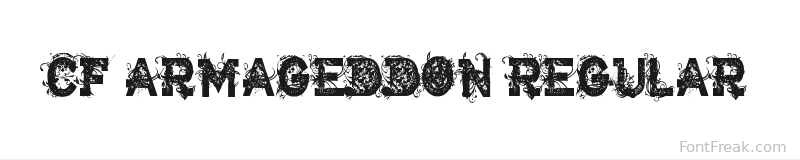
CF Armageddon Regular
CF Armageddon Regular by Cloutierfontes is a striking display font that embodies a unique blend of creativity and boldness. This decorative typeface features a rugged, textured appearance that captures attention with its intricate design. The strokes exhibit a varied weight, creating a sense of depth and character, while the contrasting elements enhance readability and visual interest. The spacing is thoughtfully crafted to maintain clarity, making it suitable for various applications.
This font is ideal for a range of creative projects. It shines in contexts that demand a strong visual impact, such as movie posters, where its dramatic flair can draw in viewers. Additionally, CF Armageddon Regular is perfect for designing eye-catching album covers, offering an edgy aesthetic that resonates with music lovers. It's also well-suited for promotional materials, such as flyers and banners, where a bold statement is essential. For those in the food industry, using this font in restaurant menus can add a unique touch that distinguishes a brand from competitors, attracting customers with its unconventional style.
Targeting graphic designers, small business owners, and content creators, CF Armageddon Regular provides an exciting option for those looking to make a memorable impression. Its freeware license allows for easy access and application, encouraging creativity without financial constraints.
Overall, CF Armageddon Regular stands out due to its distinctive visual appeal and versatility. The combination of its textured strokes and bold design elements creates a font that not only captivates but also enhances the message it conveys. For anyone seeking a memorable typeface, the CF Armageddon Regular font free download is an excellent choice for elevating any project.